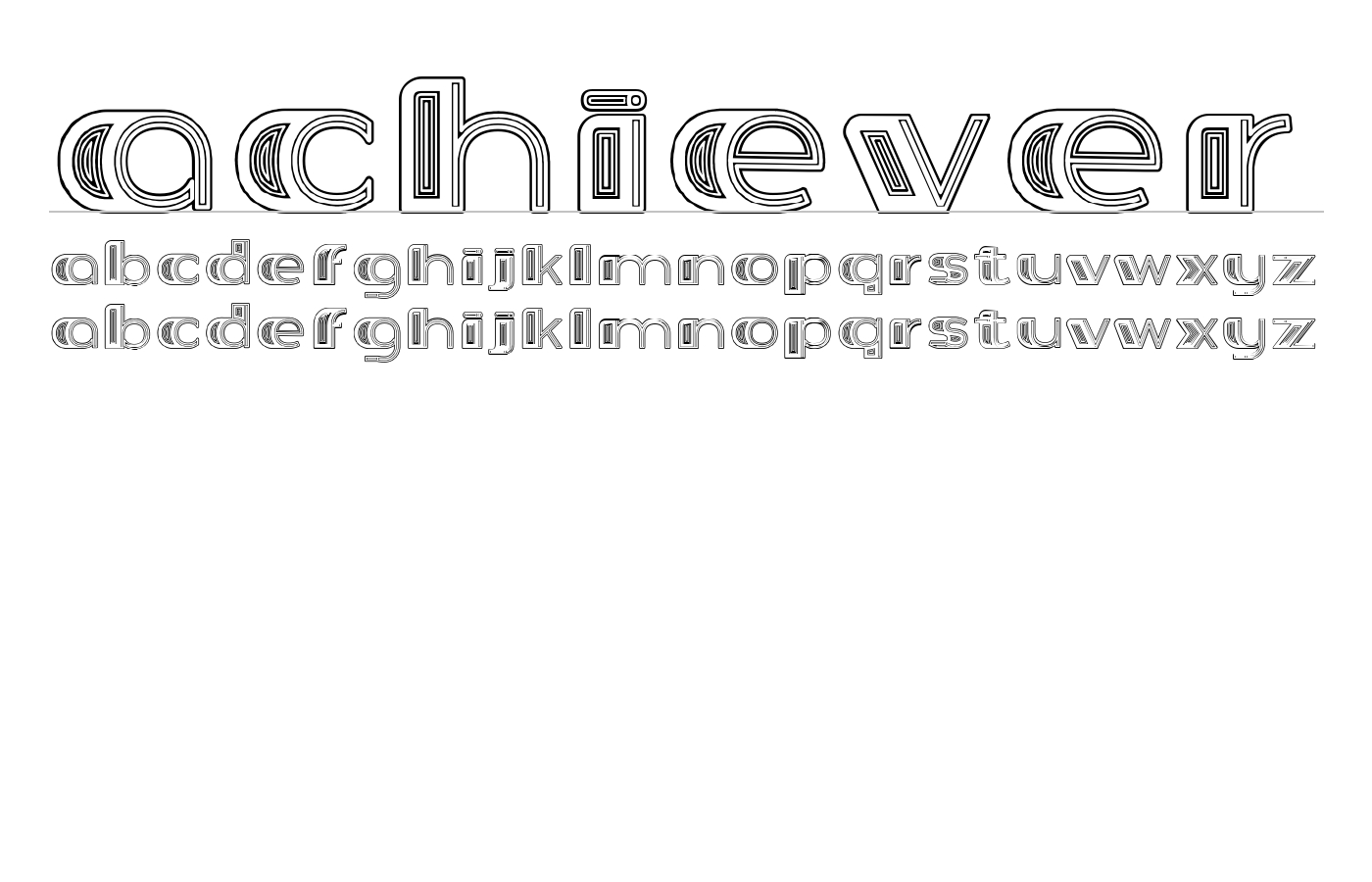
Achiever is a unique sans serif font featuring bold, geometric letterforms with a layered outline effect that creates a modern, futuristic feel. Its clean lines and consistent stroke widths give it a structured yet playful personality, making it ideal for eye-catching logos, headlines, and creative branding projects. This font works well where a strong, contemporary style is needed to convey innovation and energy.
Achiever Font
About Achiever Font